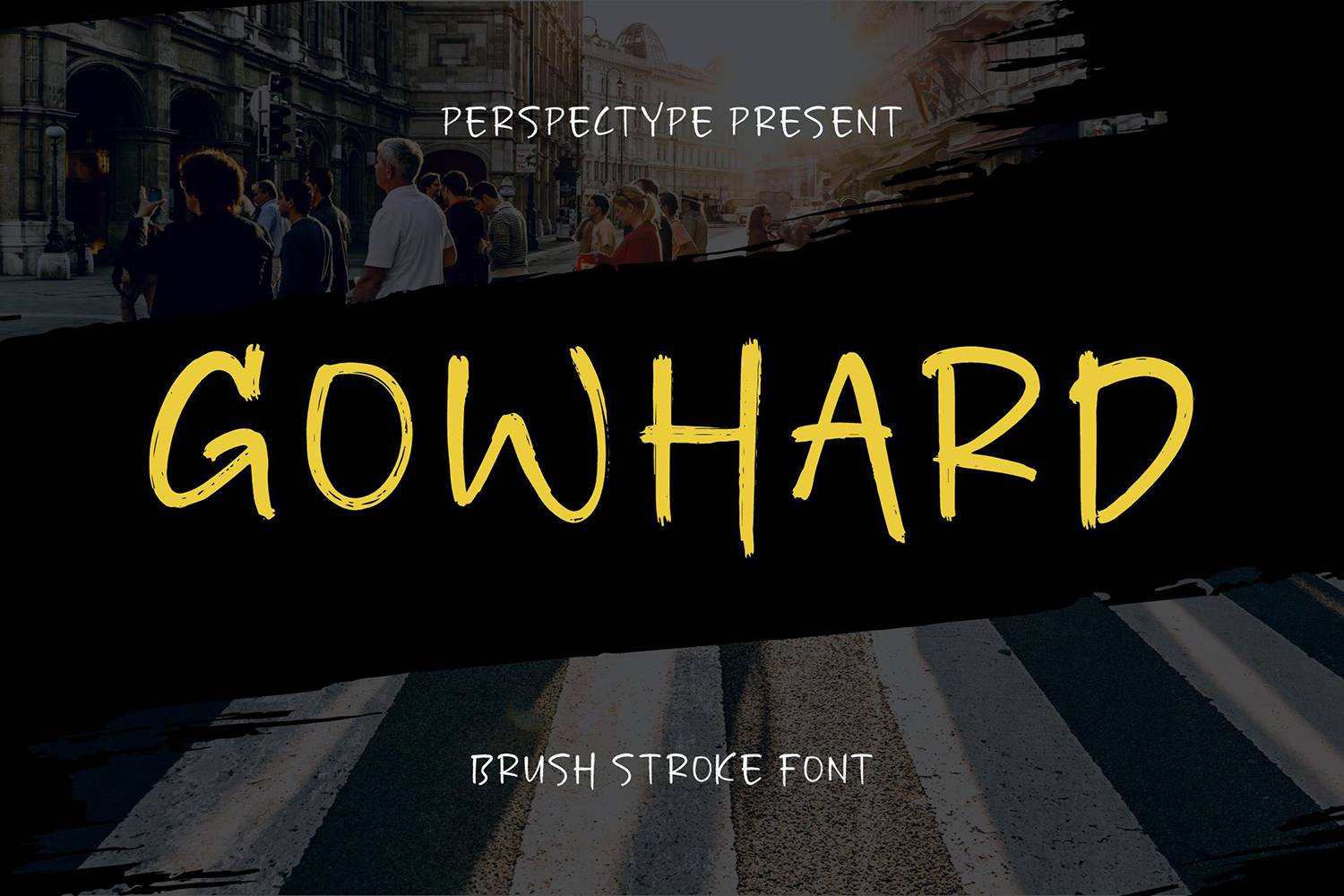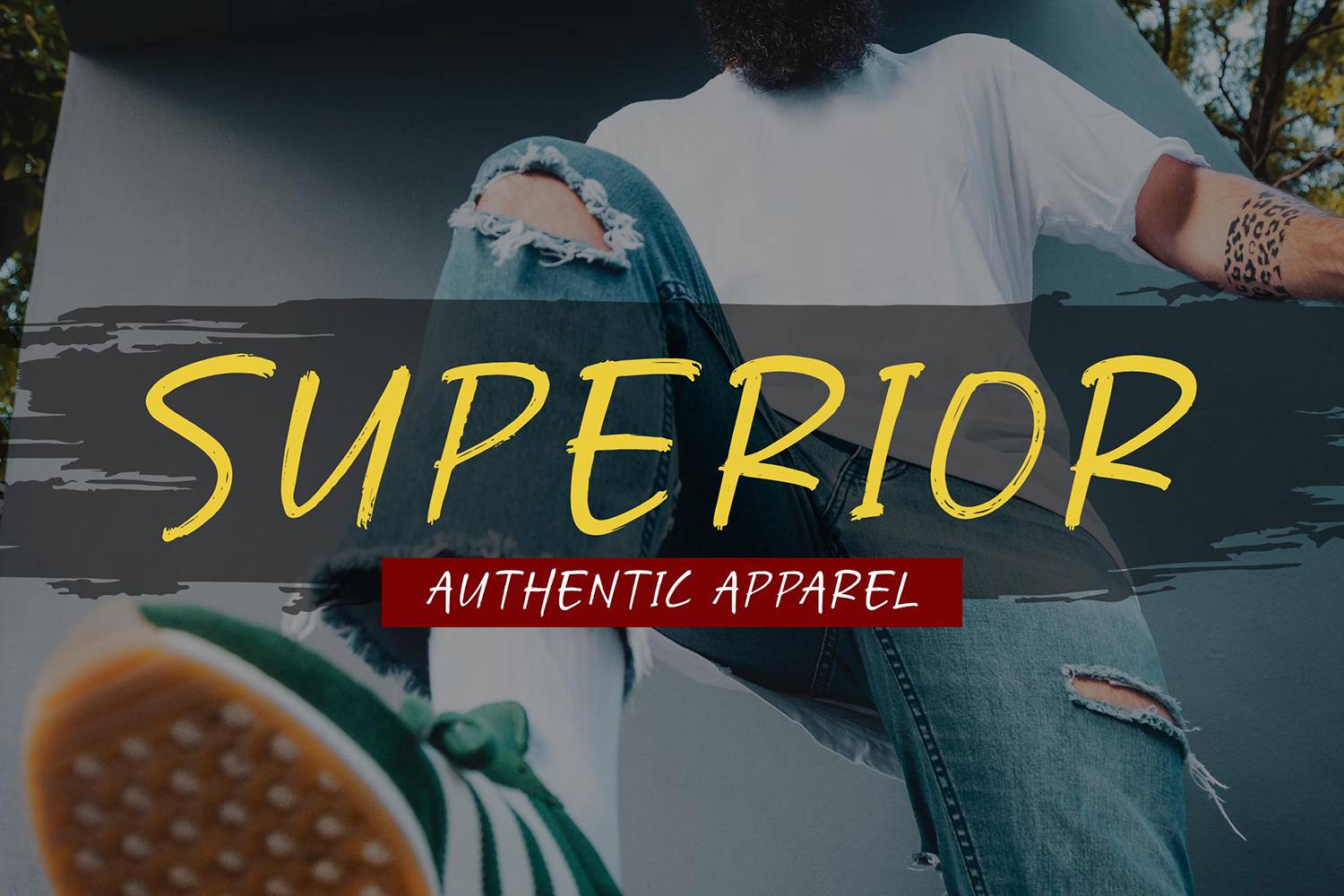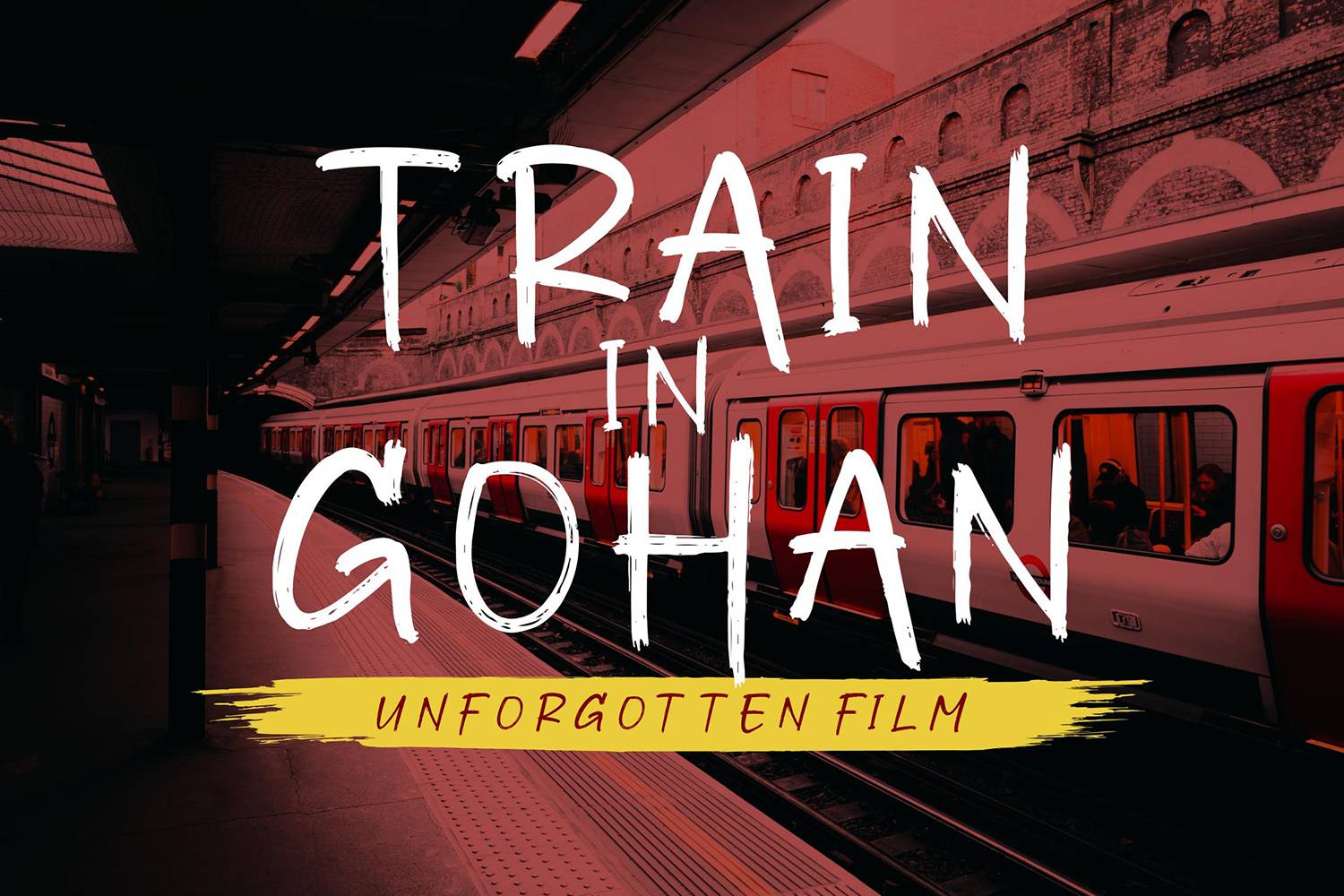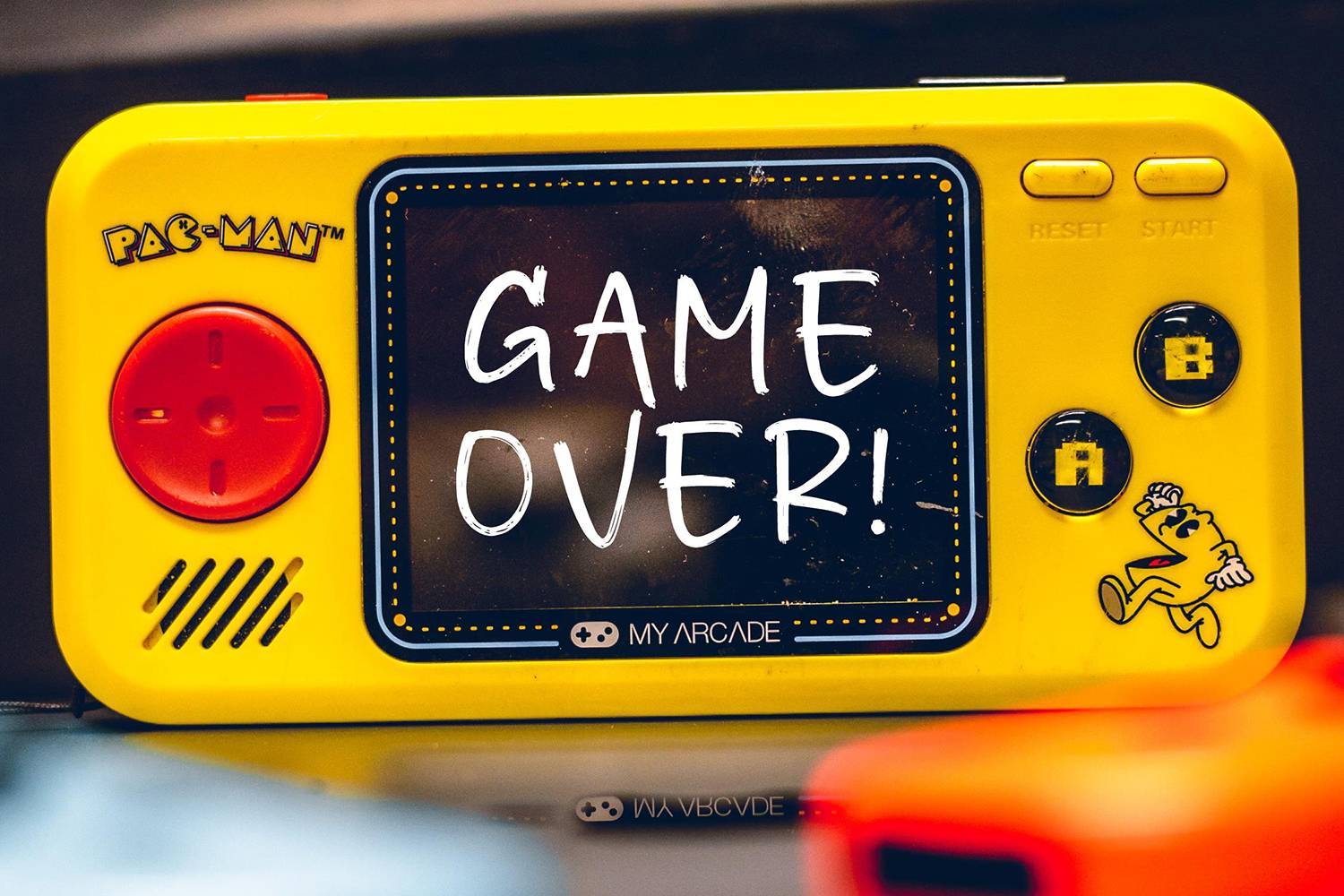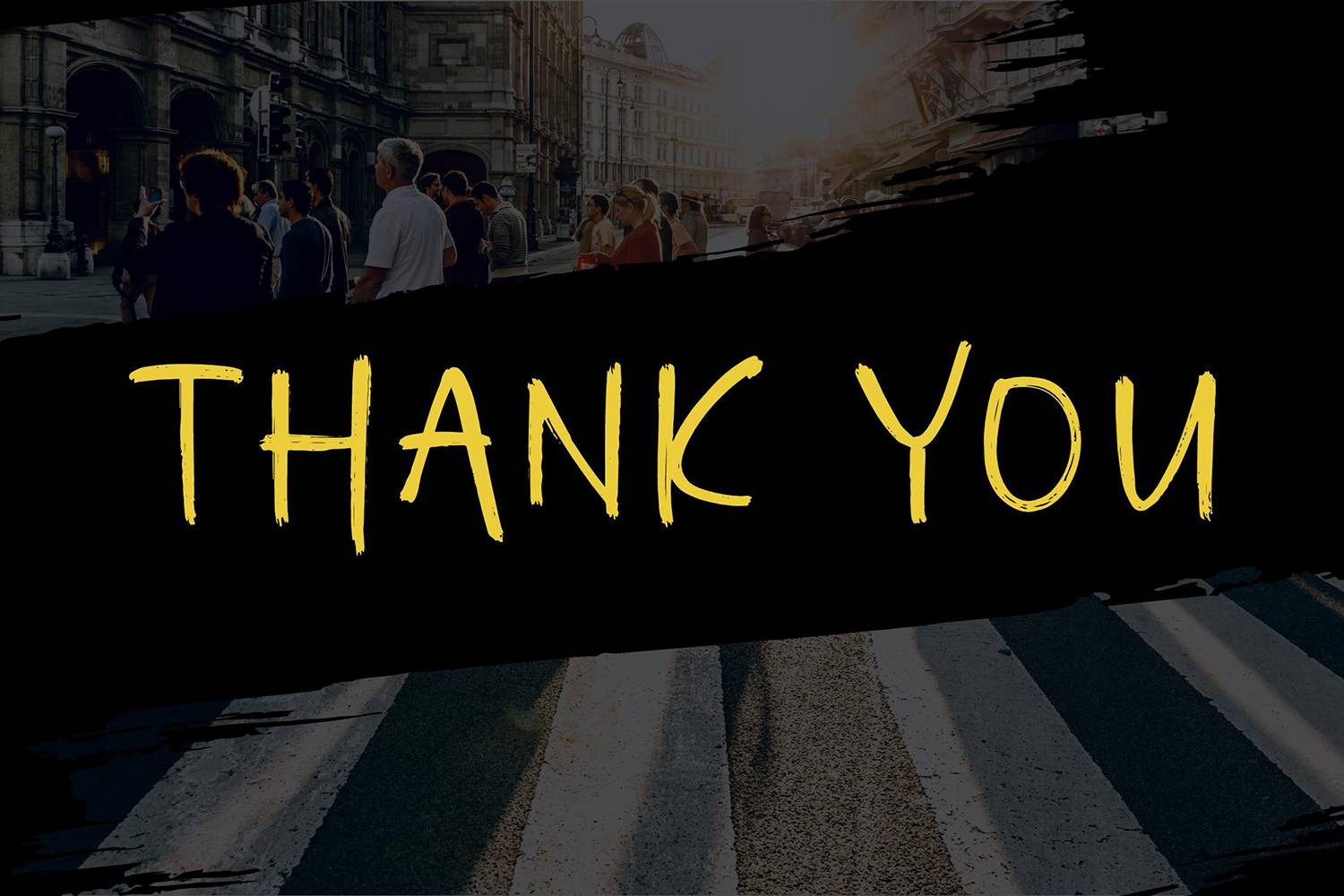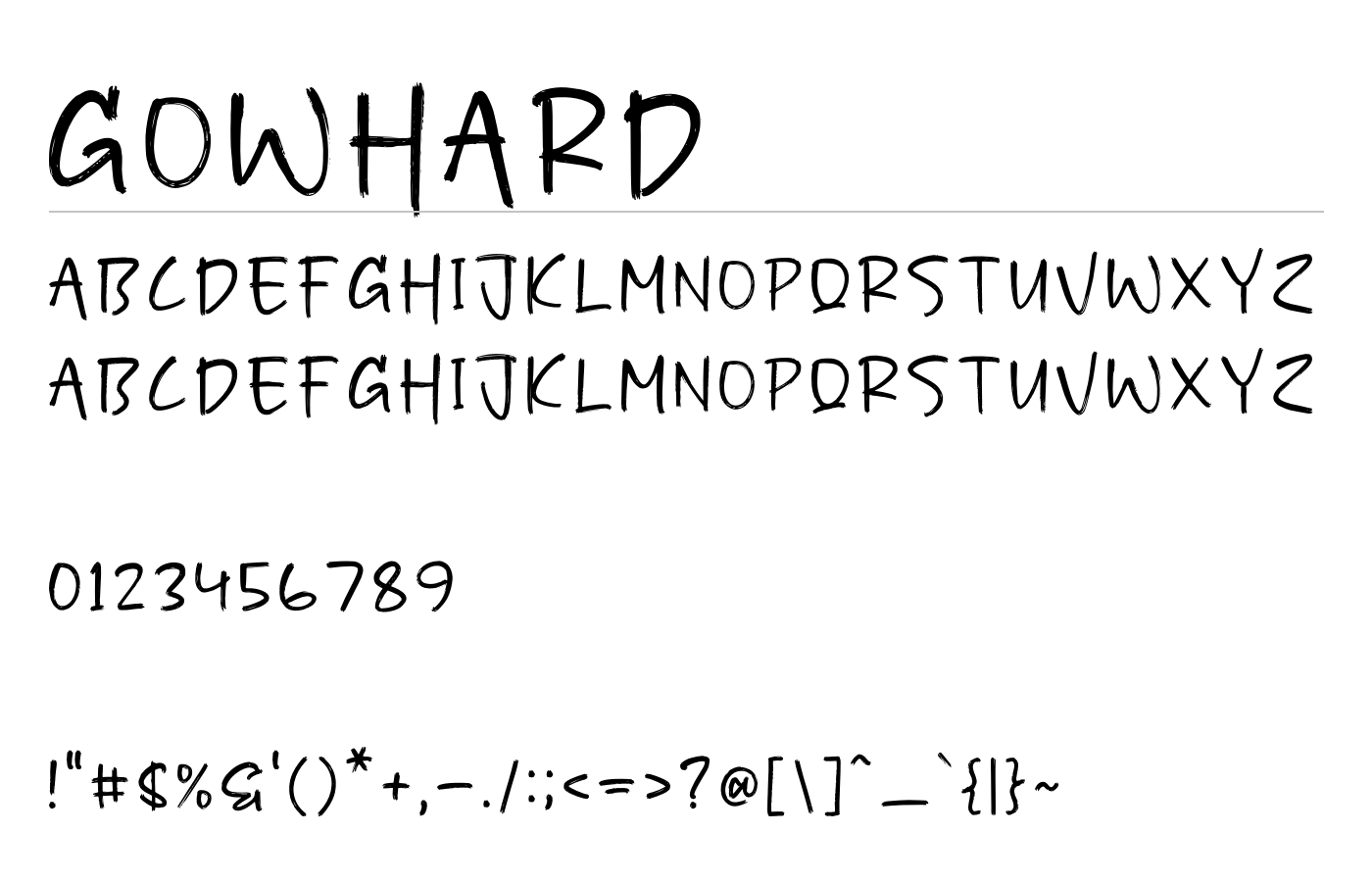
Gowhard is a playful handwritten sans serif font characterized by its casual, brush-like strokes and uneven letterforms that give it a lively, organic feel. Its light weight and tall, narrow characters make it ideal for informal branding, creative projects, and fun headlines where a personal touch and approachable style are desired. This font works well in contexts seeking a friendly, artistic vibe without sacrificing readability.
Gowhard Font
About Gowhard Font